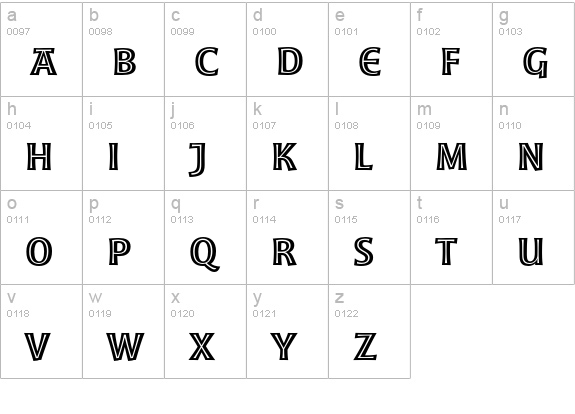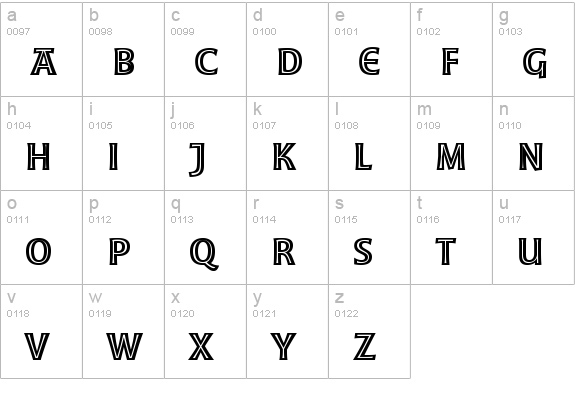
Moonglow Semibold is a sub-bold, structured variant in the Moonglow typeface family \xE2\x80\x94 well suited to sub-headlines and emphasised passages.
Moonglow Semibold is a modern and stylish font that exudes elegance and sophistication. With its bold yet graceful appearance, this typeface is perfect for making a statement in your designs. Its clean lines and distinct shapes make it easy to read while still commanding attention. This versatile font is ideal for a wide range of design projects, from branding and advertising to packaging and editorial design. Whether you're creating a sleek logo, eye-catching poster, or elegant wedding invitation, Moonglow Semibold is sure to elevate your design to the next level. Best of all, Moonglow Semibold is available for free download at FontsMarket.com. Simply visit the website to access this stunning font and start using it in your projects today. Don't miss out on the opportunity to add this beautiful typeface to your collection and enhance your designs with its unique charm and sophistication.